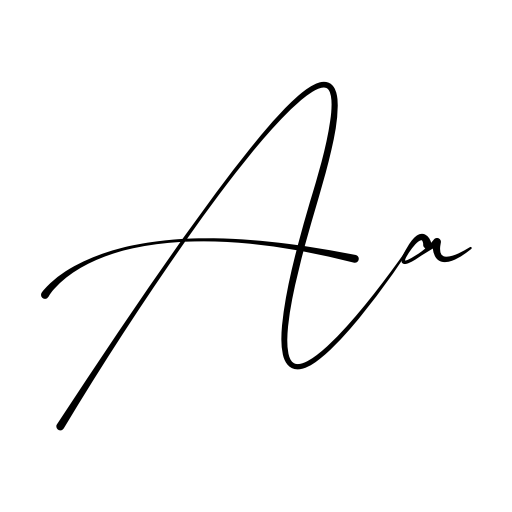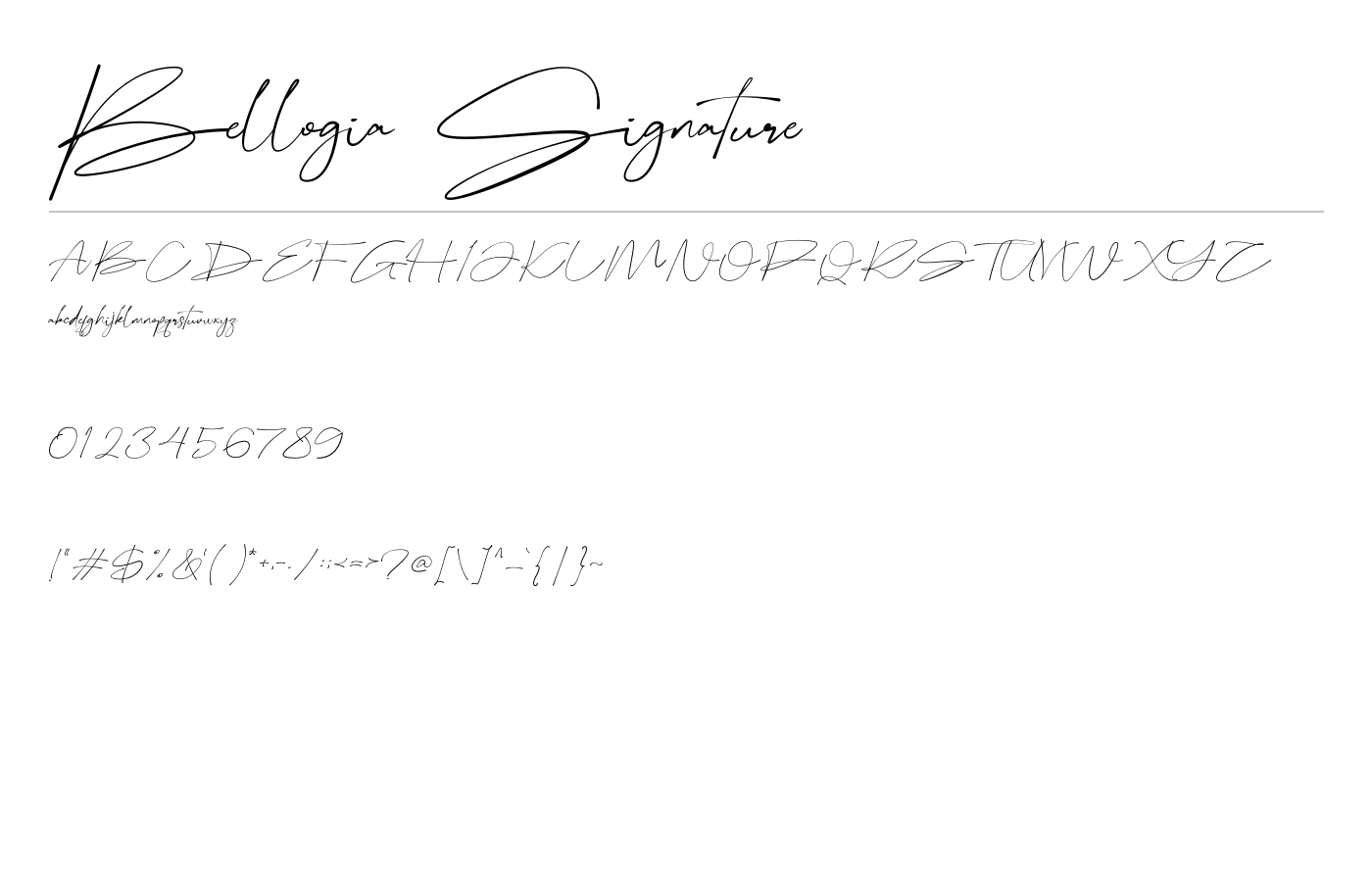
Bellogia Signature is an elegant, lightweight script font that mimics natural, flowing handwriting with fine, delicate strokes and a graceful, airy feel. Its refined, cursive letterforms make it perfect for upscale branding, wedding invitations, and stylish logos, adding a personal and sophisticated touch. This font works best in contexts where a modern, elegant, and intimate vibe is desired.
Bellogia Signature Font